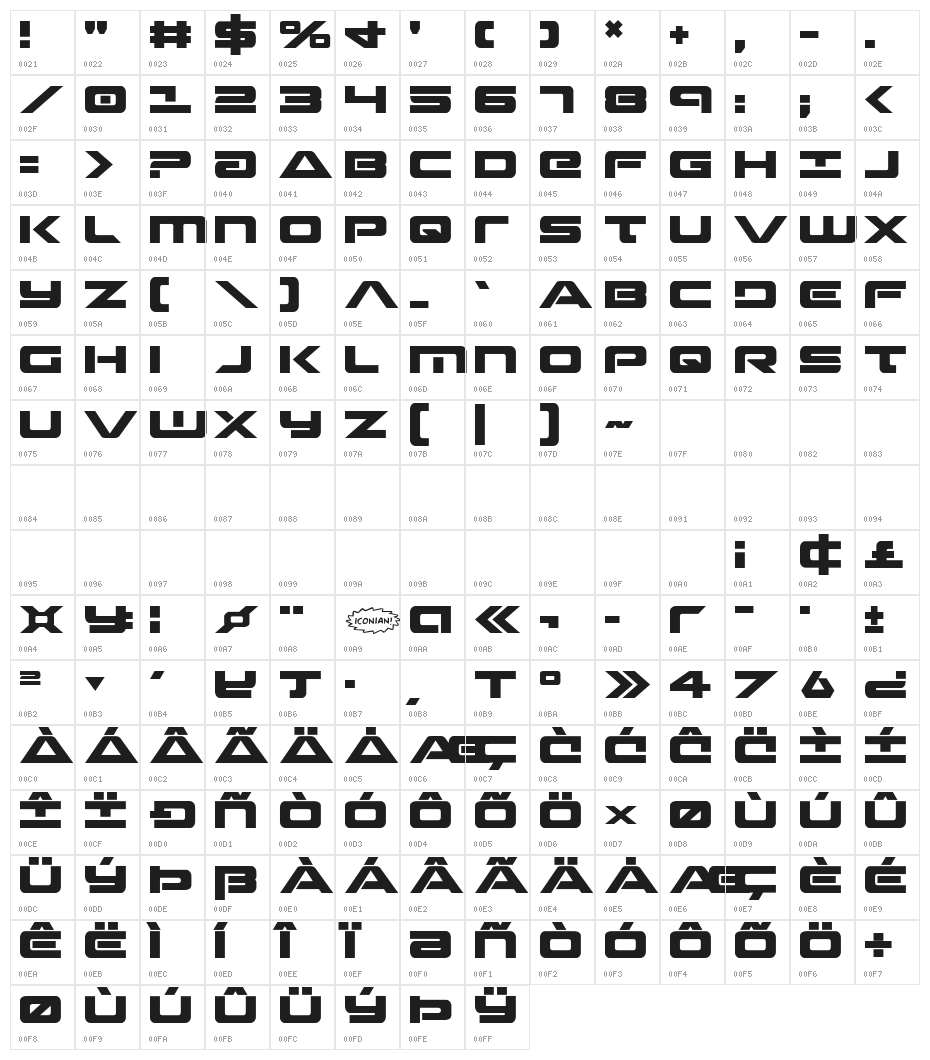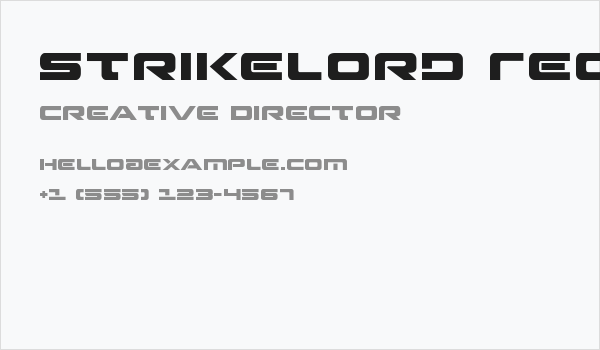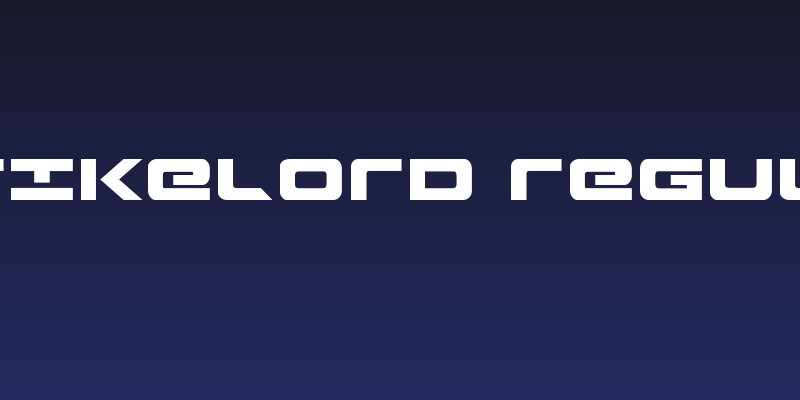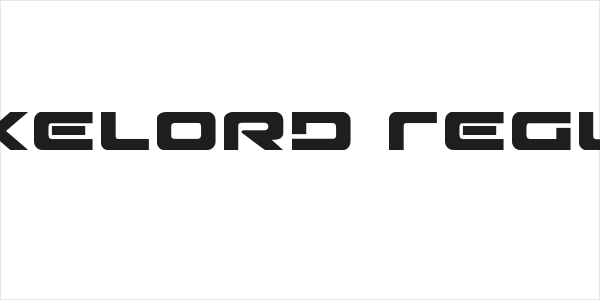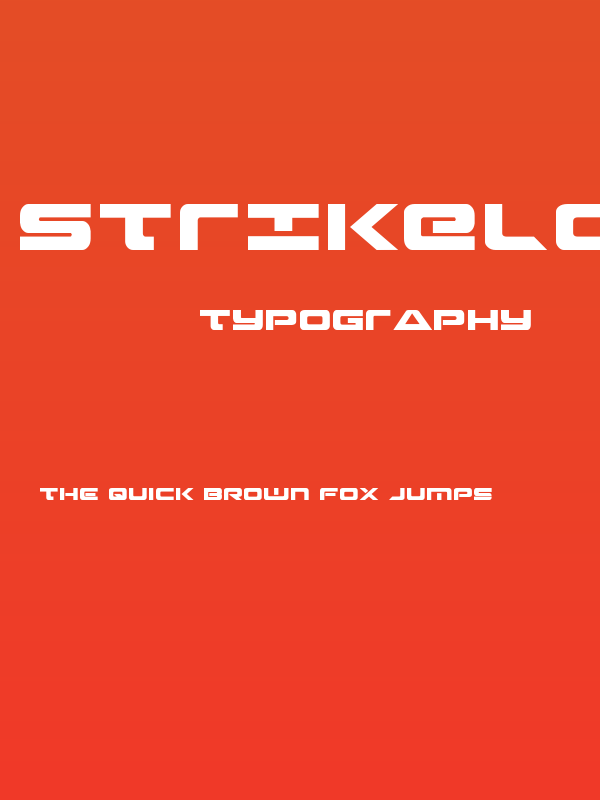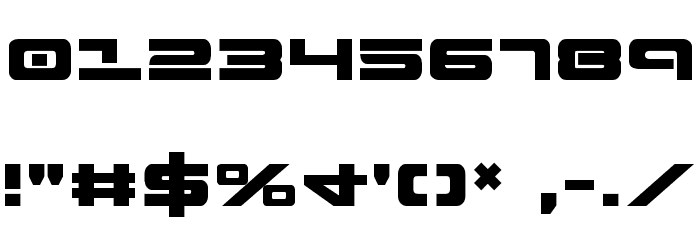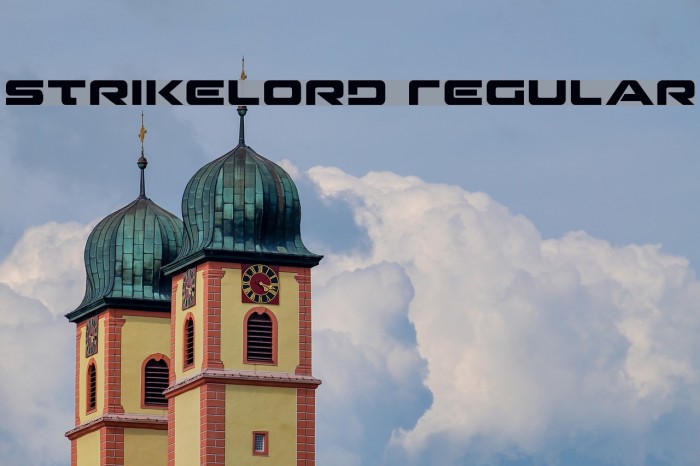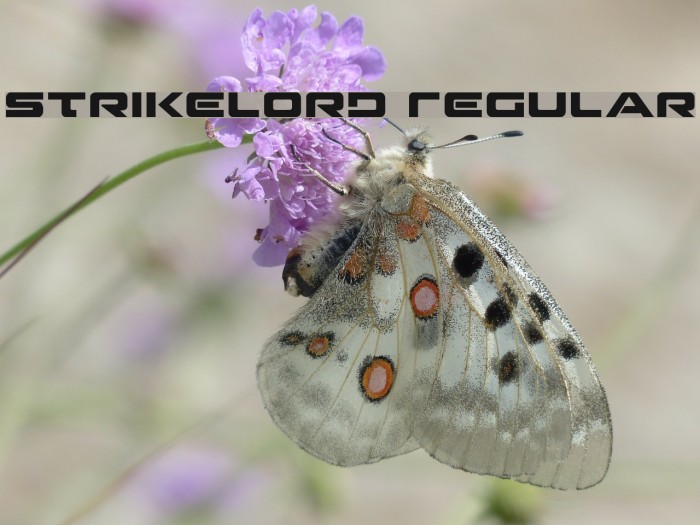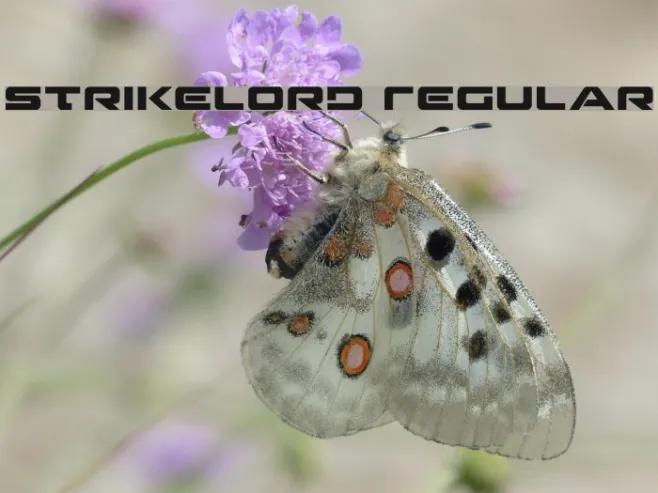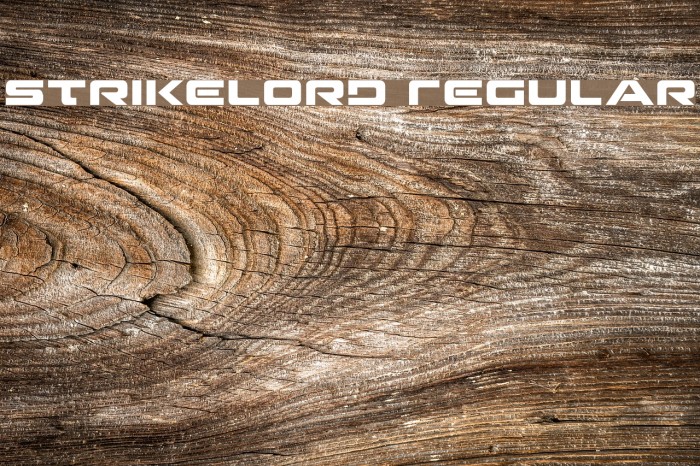
Strikelord Regular Font
Strikelord Regular Description
This font features a bold and futuristic design, characterized by its angular and geometric shapes. The letters are constructed with sharp edges and a uniform thickness, giving it a strong and impactful appearance. The uppercase and lowercase letters maintain a consistent style, with a distinct emphasis on horizontal and vertical lines. The numbers and special characters follow the same design principles, ensuring a cohesive look across all elements. This font is ideal for projects that require a modern and edgy aesthetic.